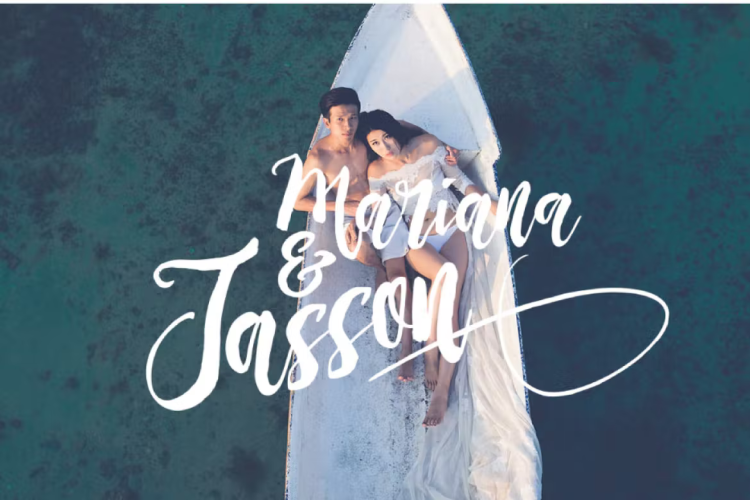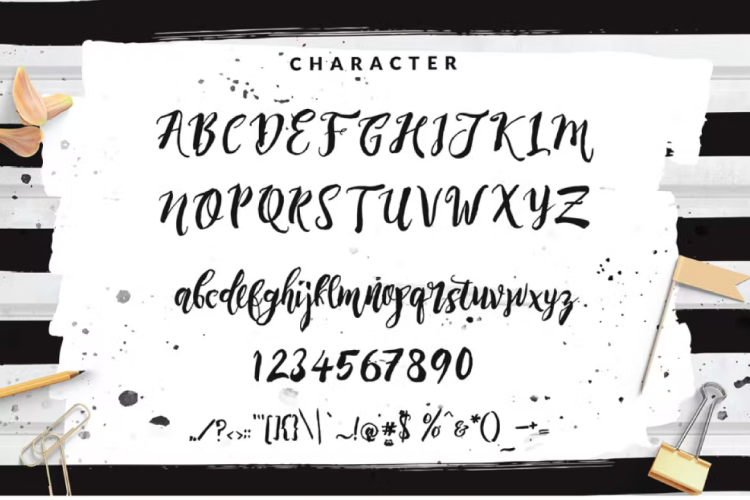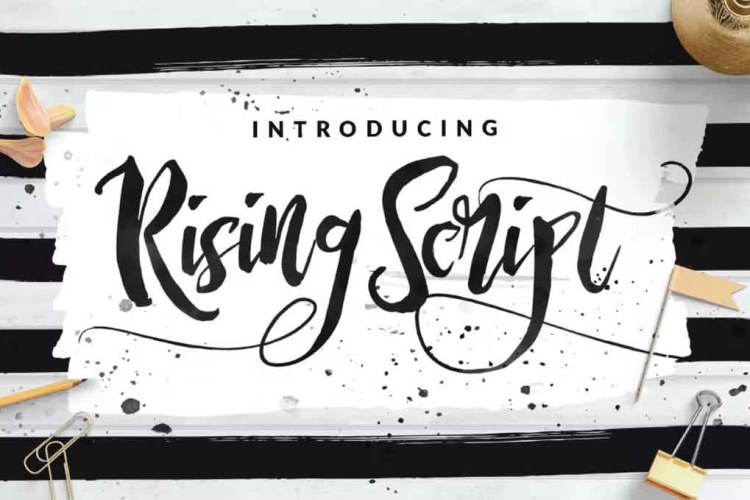
Rising Brush Script Signature logotype Font
Rising Brush Script is a chaotic beautiful script.Imperfect flow and grunge style combined with script create awesome elegant and grunge feel at the same time. Awesome for designing book covers, film covers, apparel, cards, logos, posters, etc. Opentype features gives you more alternatives in designing.
Where Rising Brush Script Signature logotype Font works best
A short phrase in Rising Brush Script Signature logotype Font carries warmth that a typeset sans cannot fake; keep the rest of the card plain.
Chalkboard-style headings in Rising Brush Script Signature logotype Font make a menu feel hand-made. Keep the dish descriptions in a simple face so prices stay readable.
One line of Rising Brush Script Signature logotype Font over a photo is enough; the script carries the tone and the caption does the work.
What kind of work does Rising Brush Script Signature logotype Font suit?
It sits in the Script And Handwritten group and reads as branding, brush, elegant, handwritten. That makes it a candidate wherever those qualities help: headings, packaging, social graphics and brand work. Set it at the size you plan to use before deciding.